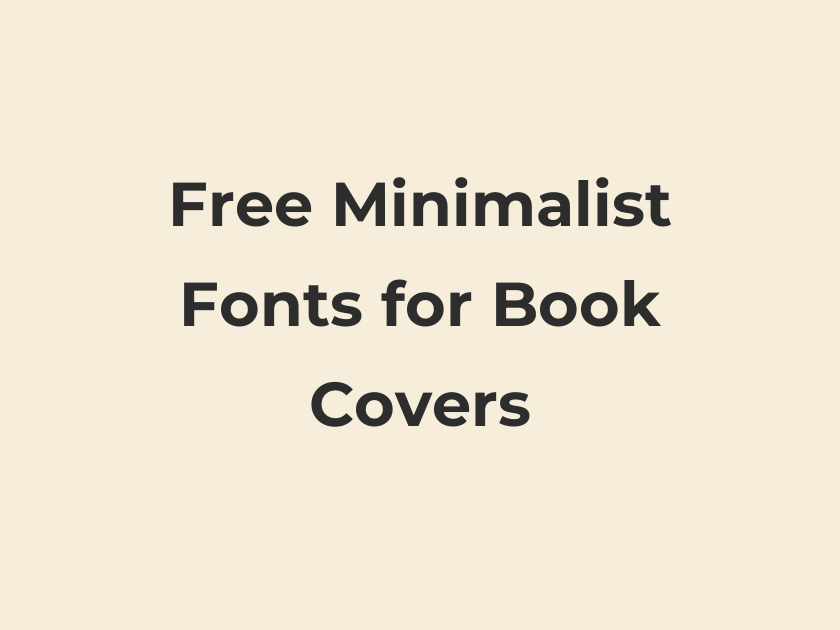
66 Best Free Minimalist Fonts for Book Covers
A book cover has one job before anyone reads a single word inside: it has to communicate mood, genre, and quality in the space of a glance. Minimalist covers put nearly all of that weight on typography, which means the free minimalist fonts you choose from Google Fonts need to hold up at spine size, thumbnail size, and full jacket size all at once. Whether you are designing literary fiction, a memoir, a slim poetry collection, or a nonfiction title that wants to look serious without shouting, the right restrained typeface can do more for a cover than any illustration.
The fonts gathered here lean toward clean geometry, calm proportions, and enough character to feel intentional rather than generic, the same qualities designers look for when searching for free minimalist fonts, sans-serif alternatives to Helvetica or Futura, and elegant serif options for book typography.
Born from the geometric lettering of old Buenos Aires signage, Montserrat has become something of a default for self-published fiction, and for good reason: its circular counters and even stroke weight give titles a confident, modern stance without any decorative noise.
Jost borrows its bones from 1920s geometric sans design, which makes it one of the closest free stand-ins for Futura. It reads as architectural and cool, ideal for cover concepts built on negative space.
Designed with optical sizing in mind, Work Sans stays crisp whether it is filling a full-bleed title or sitting small on a back-cover blurb. It has no strong personality of its own, which is exactly why it disappears behind a striking cover image.
Karla carries a grotesque skeleton with a few warm, humanist quirks in the curves. It suits contemporary fiction and essay collections that want minimalism with a touch of friendliness.
Inter was engineered for screens, so it holds up remarkably well on ebook thumbnails and retailer grids where most covers now get their first impression. Its tall x-height keeps short titles legible even when shrunk to icon size.
Manrope’s slightly condensed geometry gives it a contemporary, design-forward feel that suits essay collections and modern literary fiction. It is understated enough to let a photograph or a single line of color carry the composition.
Outfit rounds off its geometric forms just enough to feel current without tipping into anything trendy or dated. It works particularly well set in all lowercase across a plain, colored ground.
Sora softens its geometric structure with rounded terminals, giving it a gentle, almost conversational tone. It suits memoir and essay covers that want minimalism without coldness.
There is a faint monospace echo in Space Grotesk’s proportions, lending it a technical, slightly eccentric edge. It is a strong pick for speculative fiction or essay collections that want minimalism with a hint of oddity.
Archivo is a workhorse grotesque with almost no personality to get in the way, which makes it dependable for nonfiction and academic titles. Its wide range of weights lets a single cover typeface handle title, subtitle, and author name.
Few fonts arrive with a name this fitting for the trade. Epilogue is a clean, low-contrast grotesque with a slightly geometric lean, quietly capable across everything from thrillers to poetry.
DM Sans keeps its stroke contrast low and its curves simple, giving it a minimal, digital-native feel that suits contemporary fiction and design-heavy nonfiction alike.
Mulish is deliberately unassuming, a plain grotesque with rounded corners that never competes with cover art. It is a safe, versatile choice when the concept needs no typographic drama at all.
The slightly rounded corners on Rubik give it warmth that a strictly geometric sans lacks, which reads well on covers pitched toward general or upmarket fiction rather than anything severe.
Urbanist keeps its geometry tight and low-contrast, landing somewhere between Century Gothic and a contemporary tech typeface. It suits minimalist nonfiction and business titles that still want some visual softness.
Figtree’s rounded terminals and open apertures give it an approachable, almost handwritten calm despite being a strict geometric sans. It reads well set large across pastel or muted cover backgrounds.
Lexend
Lexend was developed specifically to improve reading proficiency, and that legibility research shows in how effortlessly full titles sit at any size. It is a smart, practical choice for covers where clarity matters more than flourish.
An Elegy for Paris, 1920
Josefin Sans channels the geometric sans faces of the Art Deco era, its tall, narrow caps giving off a vintage, almost cinematic elegance. Set in a light weight with generous tracking, it turns a plain title into something that feels designed rather than defaulted.
A Story Set Close to Home
Cabin softens grotesque structure with humanist curves, landing somewhere between Gill Sans and a modern system font. It suits regional fiction and quiet character studies that do not need visual tension.
Roads That Lead Back Home
Barlow was drawn with inspiration from California license plates and highway signage, and it carries that engineered, no-nonsense clarity onto a book cover. It is a solid, neutral choice for memoir and narrative nonfiction.
Letters Never Sent
Assistant is plain almost to a fault, which is precisely its value on a minimalist cover: it holds a title in place without asking to be noticed.
Hind
Between Two Languages
Hind
Hind’s grotesque forms were built to pair cleanly with Devanagari script, making it a natural fit for covers dealing with translation, diaspora, or bilingual storytelling.
A Report from the Field
Plex Sans carries a corporate, engineered feel that works surprisingly well on nonfiction covers about technology, science, or economics. Its slightly quirky details keep it from reading as sterile.
Findings from the Public Record
Developed for U.S. government use, Public Sans is about as utilitarian as a typeface gets, which is exactly the tone needed for investigative journalism and policy titles.
Red Hat Display
Interviews from the Front Line
Red Hat Display
Red Hat Display has tight, confident spacing and a contemporary grotesque structure that reads as journalistic and current. It handles all-caps title treatments particularly well.
Syne
A Manifesto for the Unfinished
Syne
Syne breaks from strict geometry with slightly irregular counters, giving it an experimental, art-book energy. It is best reserved for covers that want minimalism with an edge rather than pure calm.
- Language support: Latin, Latin Extended, Greek
Miles Between Us
Adapted from U.S. highway signage, Overpass has the same blunt, functional clarity as Barlow but with slightly more rounded terminals. It suits road-trip narratives and working-class fiction.
A Gentle Kind of Truth
Quicksand’s rounded strokes give it a soft, approachable warmth uncommon among geometric sans faces, making it a fitting match for cozy fiction, middle-grade titles, and gentle memoir.
Small Comforts, Carried Forward
Nunito shares that same rounded gentleness, but with slightly wider proportions that read comfortably even at small sizes on an ebook thumbnail.
The Bestseller Nobody Expected
Poppins is a true geometric sans built on circles, and its ubiquity across branding and self-published covers alike speaks to how well it photographs and scales. Use it with confidence, but consider tightening the tracking so it does not read as quite so familiar.
A Thin Line Between Us
Raleway’s elegant, slightly quirky lowercase w and its very light weights make it one of the more distinctive minimalist sans options, well suited to literary fiction that wants restraint with a touch of personality.
THE LAST HONEST MAN
Few free fonts have become as synonymous with minimalist cover design as Bebas Neue. Its tall, condensed, all-caps form fills vertical space efficiently and reads as authoritative from across a room, which is why it turns up constantly on thrillers and true crime.
EVERY ROAD LEADS SOMEWHERE
Oswald reworks the classic condensed grotesque tradition for the web, and it stacks beautifully across multiple lines for longer titles. It is dependable rather than flashy, which is often exactly what a cover needs.
NOTHING LEFT TO LOSE
Anton is about as loud as minimalist typography gets: an ultra-bold condensed face that turns a short title into a poster. Reserve it for covers where the type itself is the entire design, since it overwhelms almost any competing element.
THE TRUTH, UNEDITED
Blunt, heavy, and available in a single weight, Archivo Black works best on stark, high-contrast covers where a two- or three-word title needs to land like a headline.
THIS IS HOW IT ENDS
Staatliches has a slightly playful, poster-like condensed form that keeps things minimal while still feeling a bit more casual than Bebas Neue or Oswald. It suits YA and upbeat commercial fiction.
STORIES FROM THE MONSOON
Teko pairs a condensed Latin structure with roots in Indian typeface design, giving it slightly rounder joints than most condensed sans faces. It is a strong choice for titles rooted in South Asian settings or themes.
A Town Without Memory
Fjalla One is condensed but not cold, carrying enough warmth in its curves to suit genre fiction as easily as literary work. It reads clearly even at the smaller sizes used on paperback spines.
Six Caps
THE HOUSE THAT WAITED
Six Caps
Six Caps is about as extreme as condensed typography gets on Google Fonts, squeezing tall capitals into a very narrow footprint. It is a niche choice best suited to covers built around a single dramatic word.
A Novel in the Old Style
Few free serifs carry as much literary credibility as EB Garamond. Its old-style proportions and restrained contrast echo centuries of book typography, so it works beautifully on classic reissues, literary fiction, and poetry where the type itself should feel timeless rather than trendy.
Verses Written Before Dawn
Cormorant’s high contrast and delicate hairlines give it a jewel-like, almost calligraphic elegance at display sizes. It is gorgeous on poetry and literary fiction covers but grows fragile and hard to read below headline size, so keep it large.
Letters Kept for Fifty Years
This is the more text-friendly member of the Cormorant family, trading some of the display drama for readability at smaller sizes. It suits historical fiction and epistolary novels particularly well.
Cormorant SC
A NOVEL IN THREE PARTS
Cormorant SC
Set entirely in small capitals, Cormorant SC turns a title into something that feels engraved rather than typed. It pairs elegantly with a plain, muted cover background and very little else.
A Story of Sudden Light
Playfair Display’s sharp contrast between thick and thin strokes gives it a theatrical, high-fashion energy that reads as premium even in a single color on a plain ground. Used sparingly, in just a title, it is one of the most striking free serif options for upmarket fiction and memoir covers.
What the River Remembers
Lora’s brushed, slightly calligraphic curves give it warmth without ornament, making it a dependable choice for contemporary literary fiction. It reads comfortably at both cover-title and back-copy sizes.
Pages from an Old Diary
Modeled on old-style book typefaces, Crimson Text has the unforced, well-worn feel of a printed classic. It is a quiet, dependable option for historical and literary titles.
- Styles: 6 styles (3 weights plus italics)
A Season of Long Letters
Crimson Pro extends that same old-style character across a much wider range of weights, which is useful when a cover needs a light title alongside a bolder author name in the same typeface family.
Reprinted for a New Generation
Libre Baskerville was optimized specifically for screen reading, which makes it a smart pick for ebook covers as well as print. Its classic Baskerville proportions signal tradition without feeling stiff.
Fragments of a Longer Story
Spectral was designed for on-screen reading comfort, and its restrained, slightly cool character suits essay collections and contemporary literary nonfiction. It stays legible even in smaller subtitle text.
A Field Guide to Grief
Built to pair naturally with Adobe’s Source Sans, Source Serif 4 is a neutral, well-mannered text serif that works quietly on nonfiction covers needing a title and a long, descriptive subtitle.
Winters in a Distant City
PT Serif carries a slightly Slavic, newspaper-adjacent character that suits translated fiction and history titles. It is sturdy and legible without pulling focus from cover art.
Notes from the Factory Floor
As a slab serif, Bitter brings a bit more visual weight and structure than a standard text serif, which suits nonfiction about labor, industry, or place. It holds up well in both display and body sizes.
Bread, Salt, and Memory
True to its German name, meaning wholegrain, Vollkorn has an earthy, unpretentious warmth that suits memoir and food writing far better than anything sleek or corporate.
A Song for the Drowned
Alegreya was drawn with literary text in mind, its calligraphic contrast giving titles a dynamic, slightly dramatic rhythm. It works particularly well on poetry and translated literary fiction.
Letters Written in Two Alphabets
Frank Ruhl Libre has roots in Hebrew typeface design and carries a dense, textured character that photographs beautifully in dark, moody cover treatments. It suits historical and diaspora narratives especially well.
A House Full of Books
Domine was built specifically with book design in mind, and it shows: sturdy, well-spaced, and calm, it is an easy, reliable choice whenever a cover needs a serif that simply works.
Translated from the Original
Noto Serif’s enormous multiscript support makes it a practical choice for translated works or titles that need to sit alongside non-Latin scripts on the same cover.
An Ancient Story, Retold
Cardo’s classical, old-style proportions carry a scholarly, almost archival quality, which suits history, classics, and academic nonfiction covers that want restraint over spectacle.
- Language support: Latin, Latin Extended, Gothic, Greek, Greek Extended, Hebrew, Old Italic, Runic
A Portrait in Fine Lines
Marcellus is refined and slightly formal, with capitals that feel closer to stone carving than to a printed page. It works well on elegant, minimalist covers that lean on a single centered title.
TALES FROM A FALLEN EMPIRE
Cinzel draws directly from Roman inscriptional capitals, giving it a monumental, timeless gravity that suits historical fiction, mythology, and classics reissues. Set widely tracked and small on an otherwise empty cover, it can look extraordinarily expensive for a free typeface.
A Quiet Kind of Grandeur
Prata is a refined display serif with just enough contrast to feel elegant without tipping into anything ornate, a good match for upmarket fiction and lifestyle nonfiction.
- Language support: Latin, Cyrillic, Cyrillic Extended, Vietnamese
Soft Words for Hard Winters
Fraunces carries old-style warmth with a slightly quirky, almost soft-serif character depending on which optical size is used. In its lighter weights it reads as gentle and literary; in bolder settings it can feel almost handmade, so it is worth testing both extremes before settling on a treatment.
Tenor Sans
A Life Lived in Plain Sight
Tenor Sans
Tenor Sans is understated in the most literal sense, a calm geometric sans with no display flourishes at all. It is best suited to covers where a photograph or a solid field of color does most of the storytelling.
Josefin Slab
Letters from the Old Quarter
Josefin Slab
The slab counterpart to Josefin Sans, this typeface keeps the same vintage, Art Deco-adjacent proportions but adds a bit more visual weight, useful when a title needs to hold its own against a busier cover image.
Antic
A Plain Account of Events
Antic
Antic sits somewhere between a grotesque sans and a slab, with square, no-nonsense letterforms that suit straightforward nonfiction and reportage.
Judson
A Modest Proposal, Revisited
Judson
Judson is a simple, well-mannered book serif without any showy details, a safe and legible option whenever a cover calls for text that should be read rather than admired.
Pairing and Setting Tips for Minimalist Covers
Stick to one typeface family per cover whenever possible. Minimalism depends on restraint, and a second typeface almost always reads as clutter rather than contrast.
If you do need two faces, pair a plain grotesque sans like Work Sans or Archivo with a restrained serif like EB Garamond or Domine for the title and author name. Keep the weight difference deliberate rather than accidental.
Generous letter spacing does a lot of the minimalist work for you. Tracking out an all-caps title in something like Cinzel or Marcellus can turn a plain word into a design statement on its own.
Always test your chosen font at thumbnail size before finalizing a cover. A typeface that looks elegant at full size can turn illegible once it is shrunk down for an online store listing.
Minimalist book cover design rewards patience more than decoration. The right restrained typeface, set with care and enough open space around it, will often say more about a book than any illustration could.